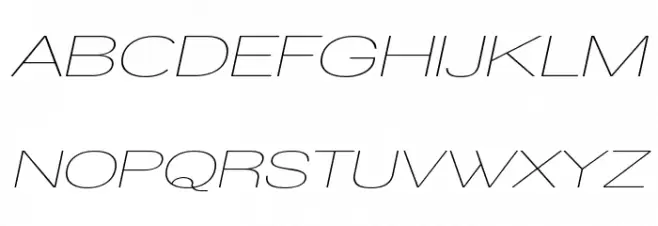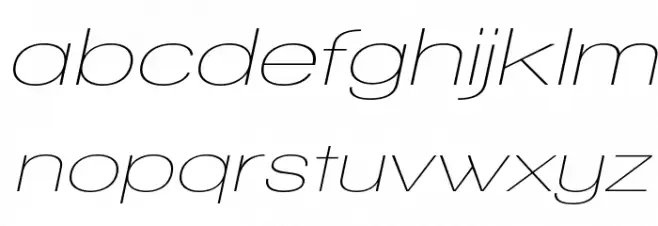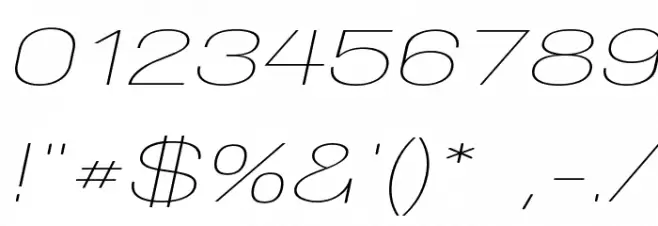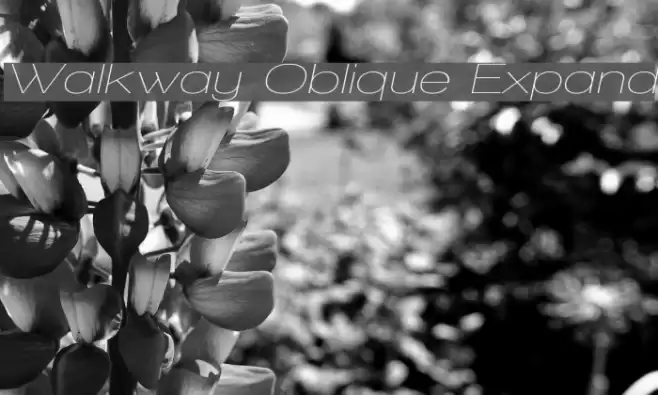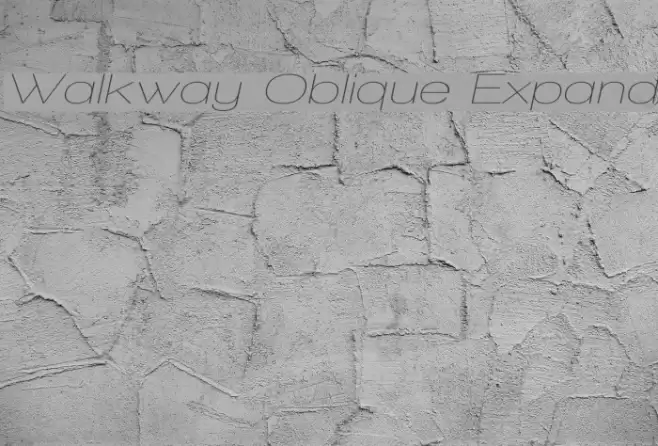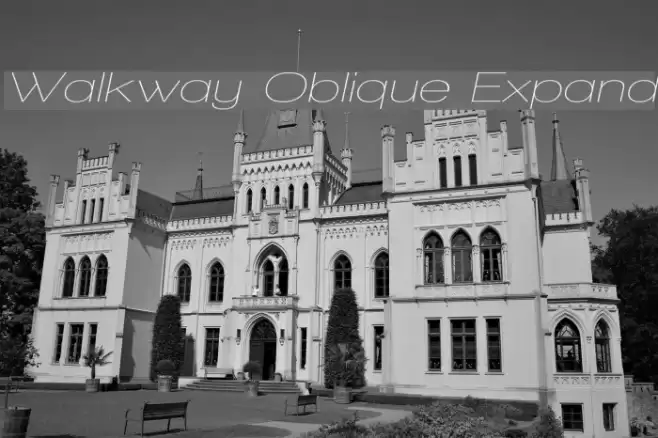
Walkway Oblique Expand
This font features a sleek, oblique style with a modern and minimalist aesthetic. The characters are elongated and slightly slanted, giving a sense of motion and fluidity. The design is clean and sans-serif, with uniform stroke widths that contribute to its contemporary look. The spacing between characters is normal, ensuring readability while maintaining a stylish appearance. This font is versatile, suitable for various applications where a modern and elegant touch is desired.
A sleek, oblique sans-serif font with a modern and minimalist style.
- Proposed Projects: Ideal for branding, advertising, modern web design, and editorial layouts.
- Width: Expanded
- Use Case: Headlines, Logos, Branding